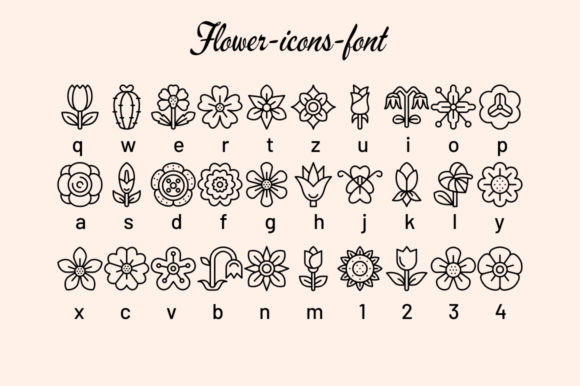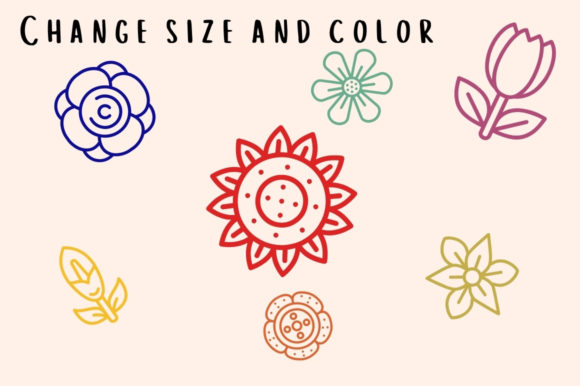
Flower icons is a beautiful dingbats font containing 30 icons of different flowers.
This font is the perfect font for making original and outstanding designs .
Flower Icons Font offers exceptional quality and versatility, making it a valuable addition to your design toolkit. Whether you’re creating for personal projects or commercial use, Flower Icons Font delivers professional results.